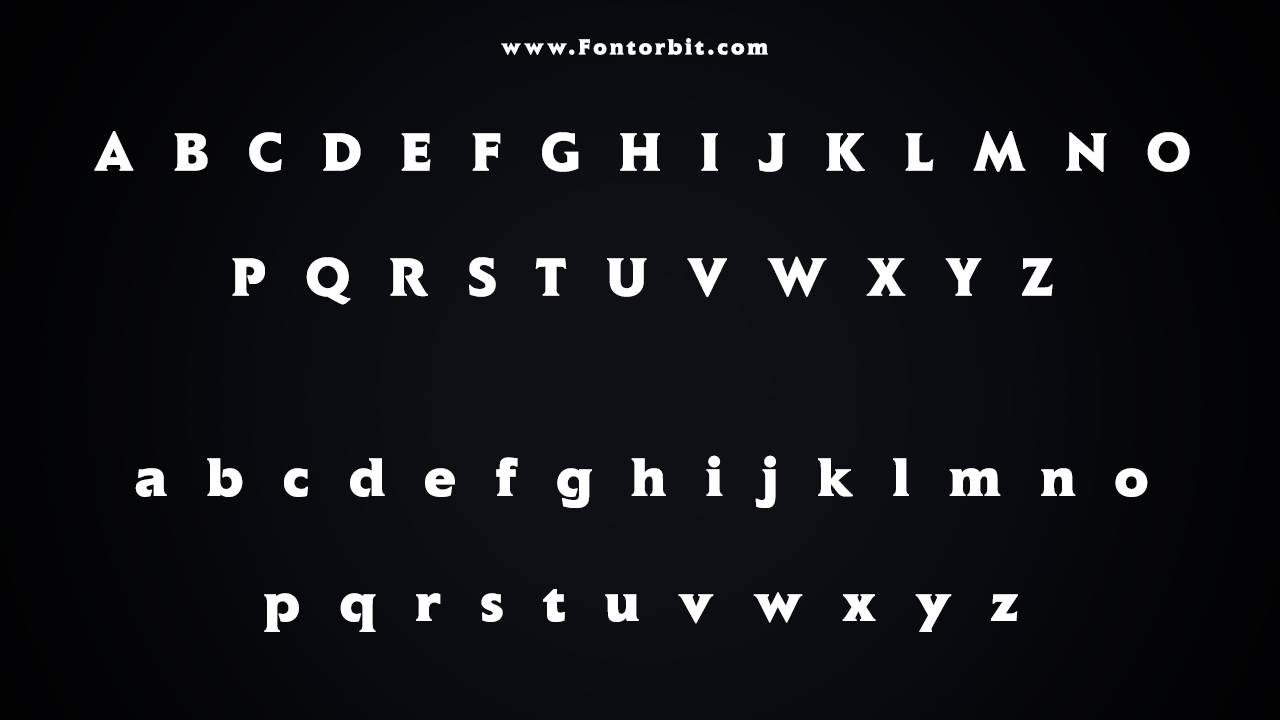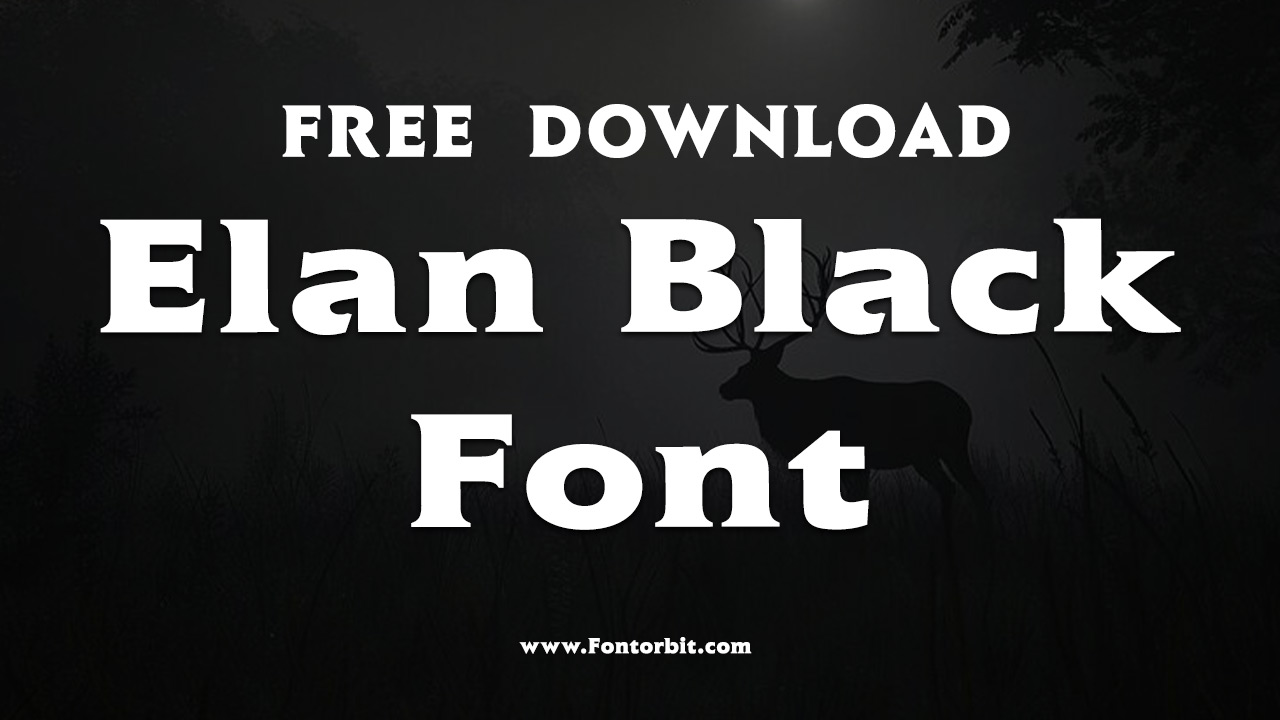
Elan Black is a striking and bold typeface designed by Albert Boston, renowned for its commanding presence and modern elegance. This typeface stands out for its distinctive character and robust design, which makes it a versatile choice for a wide range of design projects.
The Elan Black font is part of the broader Elan font family, celebrated for its contemporary style and attention-grabbing appeal.
Elan Black Family Includes
The Elan Black family is designed to offer a versatile range of weights and styles. It is perfect for creating impactful and visually appealing designs. The font family list includes:
a. Elan Black Regular
Notable Uses Of Elan Black
Elan Black is ideal for high-impact designs where you need to create a bold and commanding presence. This includes:
- Magazine Covers
- Brand Logos
Elan Black is ideal for:
- Headlines and Titles: Its bold nature makes it perfect for grabbing attention.
- Marketing Materials: Such as posters and flyers, where strong visual impact is desired.
Elan Black is an excellent choice for designers who need a typeface that combines strength and modernity. Its bold character makes it a standout option for various high-visibility applications.
2.Is Elan Black Available In Different Weights?
The family includes Elan Black and Elan Black Italic.
6.What Are The Best Alternatives To Elan Black?
Bebas Neue, Anton, and Oswald are great alternatives.
8.Can Elan Black Be Used In Print?
It is well-suited for both digital and print media.